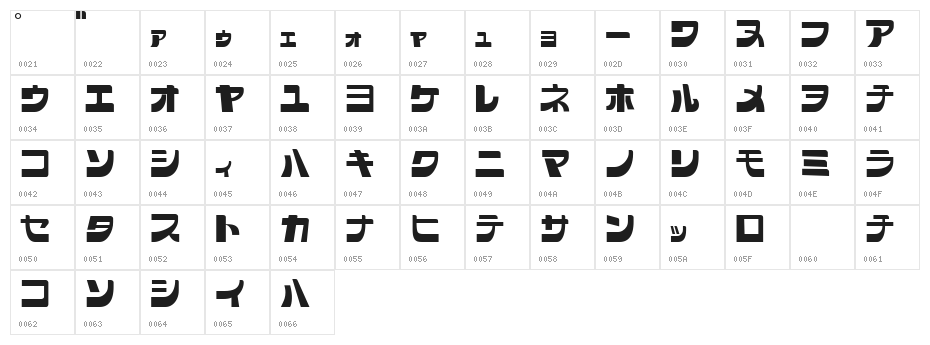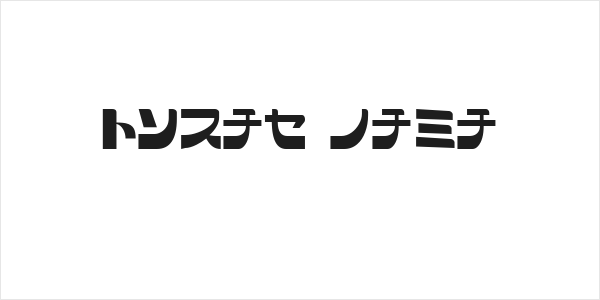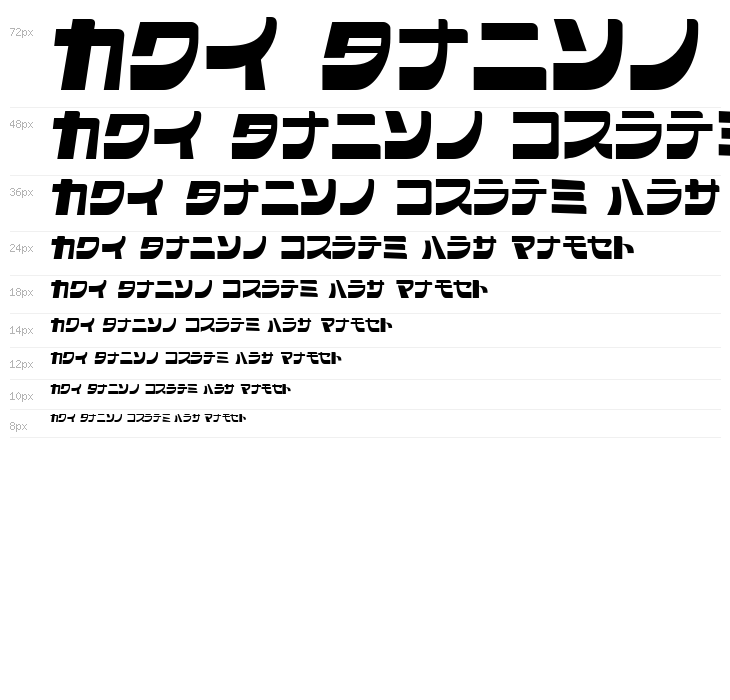
SCRAP KANA Font
SCRAP KANA Description
This font features bold, geometric shapes with a strong presence, characterized by thick strokes and a modern aesthetic. The characters are blocky and robust, with a uniform weight that gives them a powerful and assertive appearance. The design is clean and minimalistic, with a focus on clarity and legibility. The overall style is contemporary, making it suitable for a variety of modern design applications. The font's boldness and simplicity make it ideal for creating impactful headlines and titles.
BoldYes
ItalicNo
WidthNormal
Character SpacingMonospaced
ContrastLow
Overall StyleModern
Use CaseHeadlines, Logos
Proposed ProjectsIdeal for branding, advertising, posters, and any project requiring a strong visual impact.